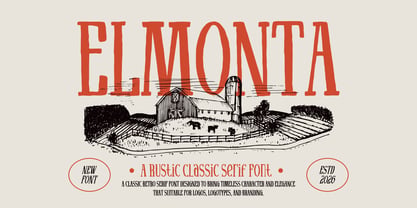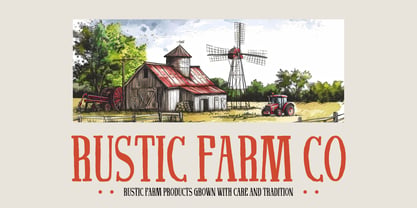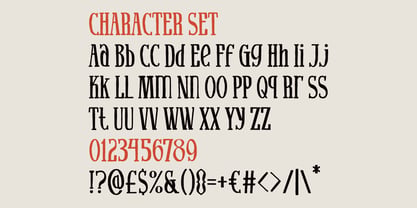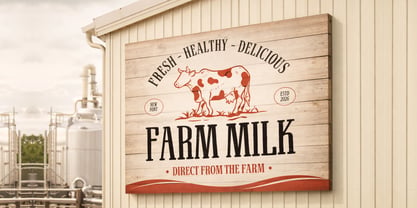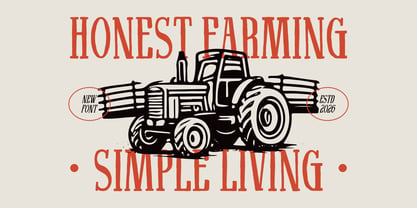
Elmonta
by Shanaf
The Elmonta Font Family was designed by Yesie Erma Yunita and published by Shanaf. Elmonta contains 2 styles and family package options. More about this family
Elmonta Rustic Classic Serif Font brings timeless countryside character into elegant branding projects. The letterforms feature tall proportions, narrow spacing, and soft vintage serif details that create a handcrafted classic appearance. Each character combines slightly uneven curves with strong vertical stems, producing an authentic rustic texture without losing readability. The font carries an old-style editorial atmosphere while maintaining clean structure for modern layouts. Thin and medium stroke contrasts add warmth and natural rhythm across headlines and logo compositions. This typeface fits farm branding, organic food packaging, coffee labels, dairy products, handcrafted goods, western-themed businesses, and rustic restaurant identities. Use it for logos, signage, posters, product labels, magazine titles, invitation cards, book covers, stickers, branding kits, and advertising materials that need a warm traditional tone.
Elmonta Rustic Classic Serif Font works strongly in vintage-inspired display typography and heritage branding systems. The condensed serif structure creates a memorable silhouette that feels nostalgic, grounded, and honest. Rounded corners soften the overall appearance, while elongated letter shapes keep headlines striking and refined. This font matches themes such as farmhouse living, countryside markets, artisan products, old-town cafés, rural tourism, handmade goods, and traditional culinary branding. It also performs well for whiskey labels, bakery packaging, agricultural businesses, antique stores, gardening brands, and rustic event promotions. The character style balances decorative classic influence with practical readability for print and digital use. Pair it with simple sans serif text or script accents to create balanced layouts with timeless rustic appeal.
Designers: Yesie Erma Yunita
Foundry: Shanaf